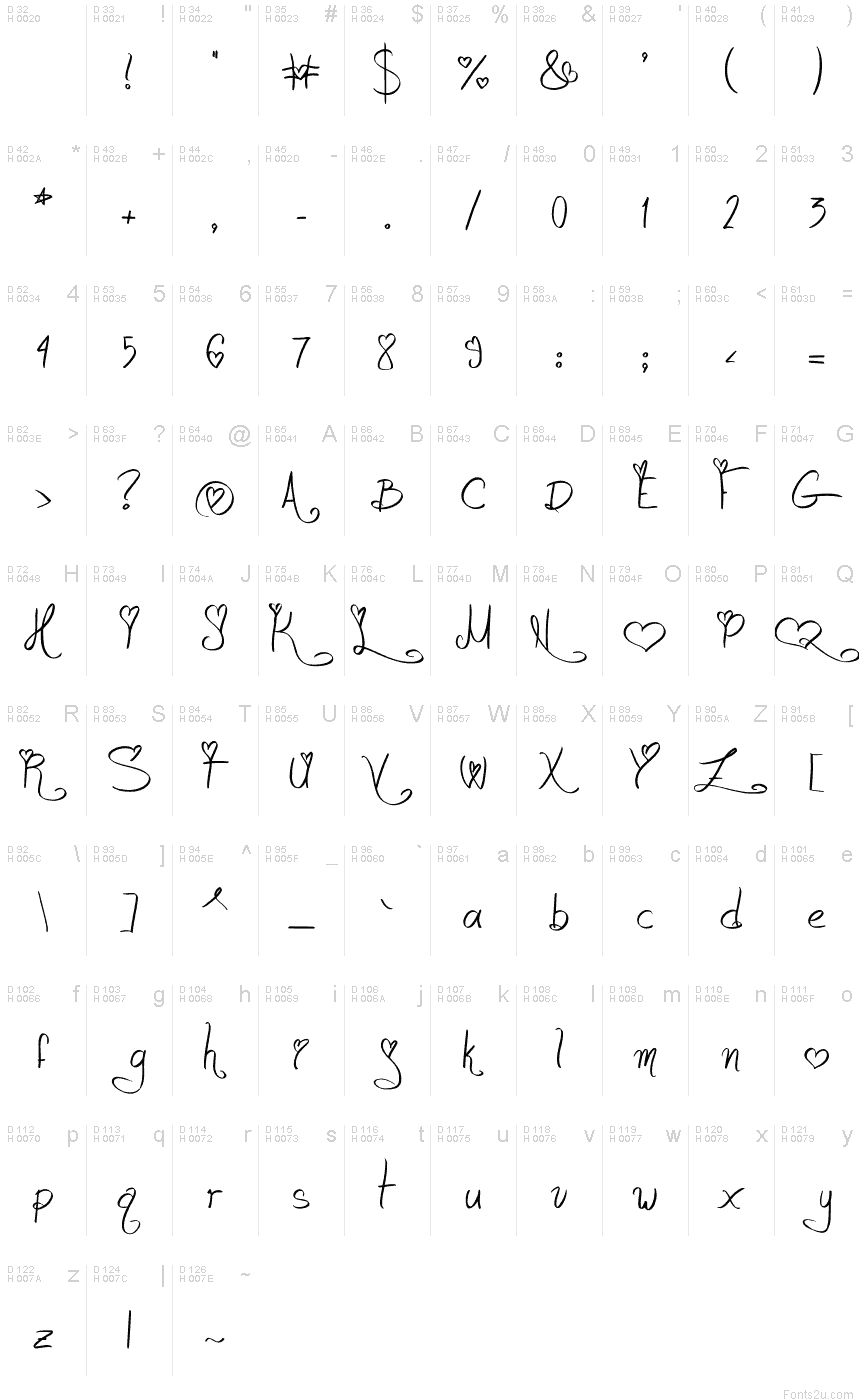
Jellyka - Love and Passion by CuttyFruty is a free romantic script font with the easy sweep of handwritten lettering. Tall, looping strokes rise above rounded letters, and the changing line weight gives the writing a quick, pen-drawn flow. The forms are open, informal, and unmistakably handmade.
A bridal stationery studio or confectionery brand could use it for identity and packaging, where the generous curves signal affection at once. Its closest audience is couples and boutique makers seeking lettering that feels personal, especially for wedding suites, Valentine's promotions, and keepsake products built around hearts, romance, or warm handwritten messages.